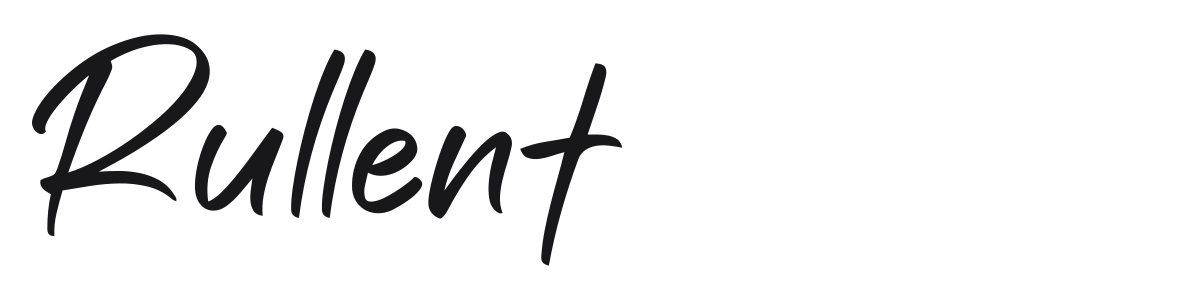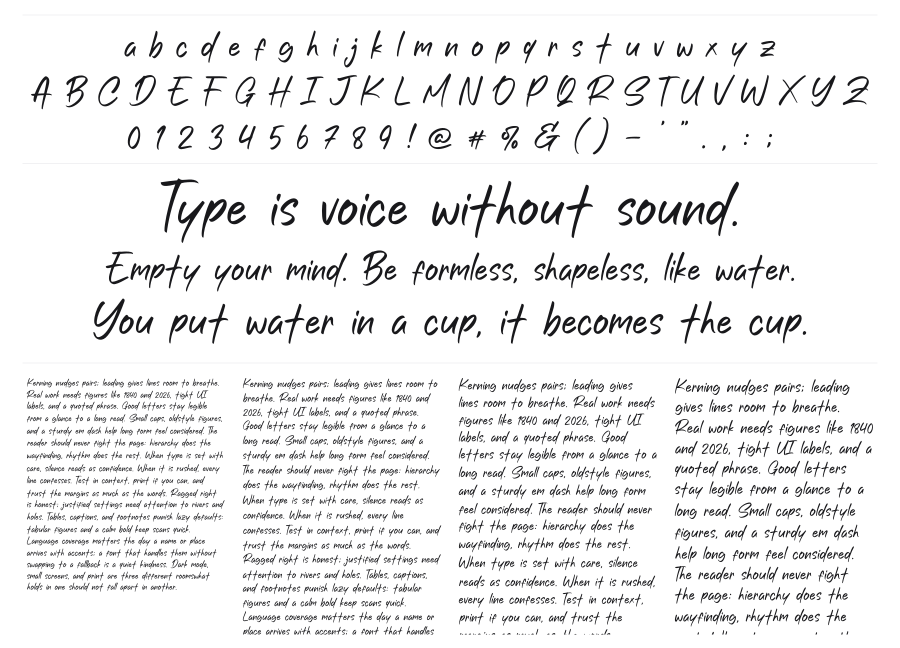
Rullent
Rullent is a casual handwritten script with a loose, natural flow and consistent pen-like stroke weight. The letters connect freely with a gentle slant and slight baseline irregularity that keeps it feeling genuinely handmade rather than mechanical. It works well for logos, packaging, and any context where approachable informality is the goal.